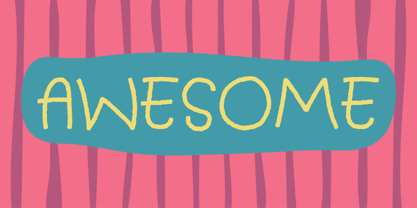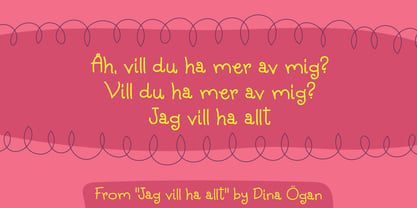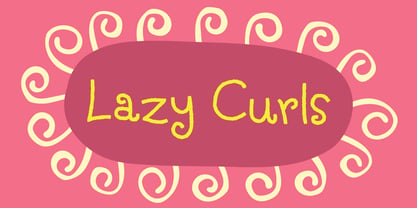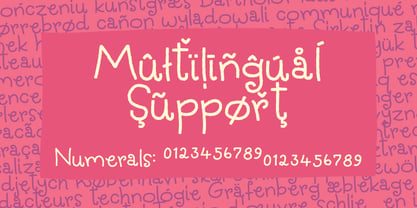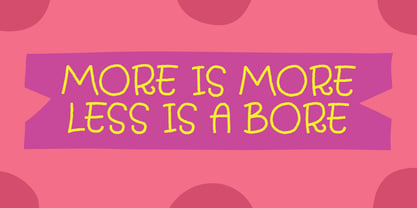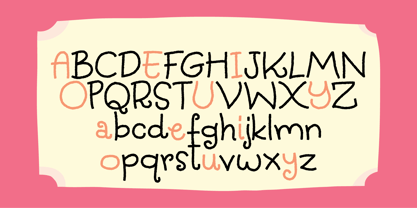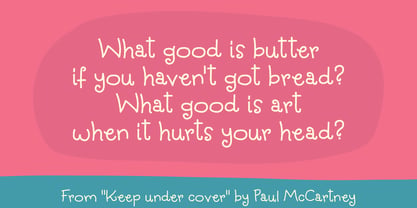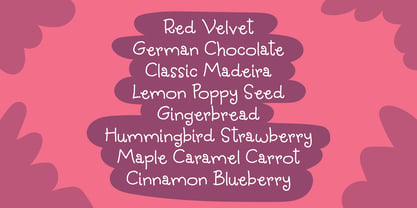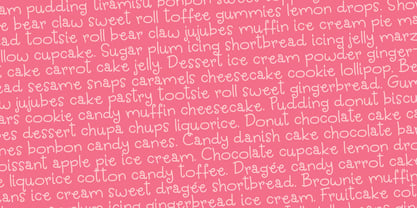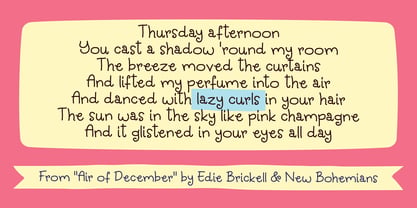
Lazy Curls
The Lazy Curls Font Family was designed by Jakob Fischer and published by PizzaDude.dk. Lazy Curls contains 2 styles and family package options. More about this family
The name of this font is borrowed from a song by Edie Brickell. A particular line in the song "Air of December" goes "...And dance with lazy curls in your hair..." - I remember listening to that song in 1986, and noticing for myself that one day, would be using that part of lyrics for something ... I wasn't sure for what, but ... now, 40 years (!) later, I found a perfect use: I named this slightly curly font "Lazy Curls" :)
Features:
I have included the Standard Ligatures - the well-known ligatures such as ff, fi, fl, ffi, ffl
Subscript and Superscript
Normally typedesigners resizes the numbers to make Subscript and Superscript. I do that on occasions as well, but in this case I have drawn the numbers, instead of resizing them. That way they appear more natural, organic and unique.
Fractions are nice having available. You skip the work of resizing the numbers yourself, because I have done all the work for you!
Multilingual support
This font comes with extensive multilingual support, and supports loads of different languages.